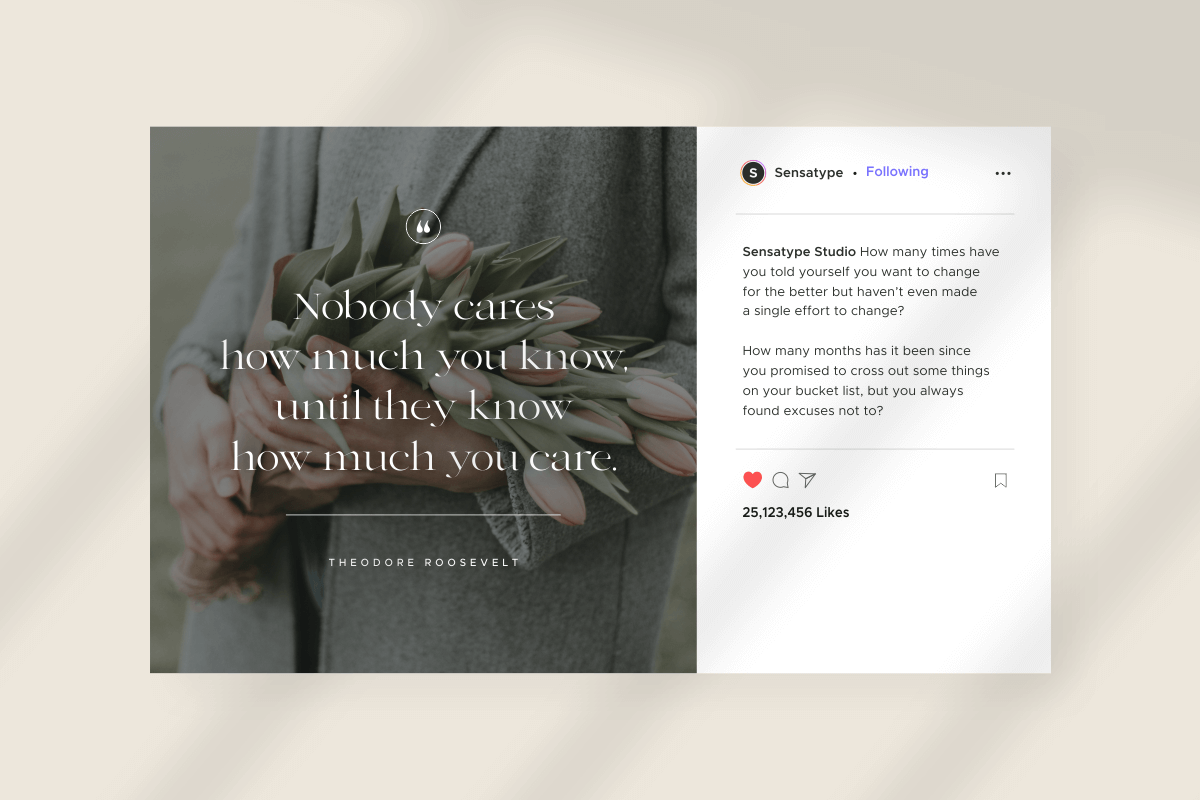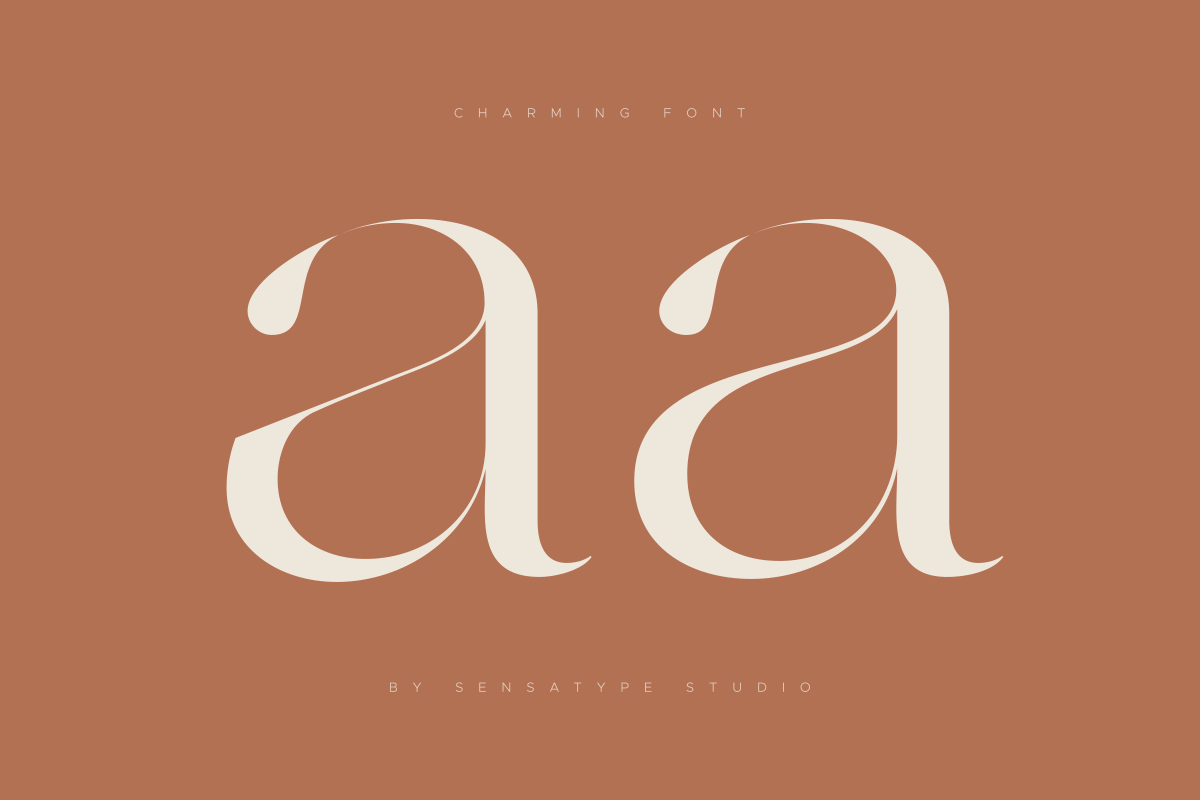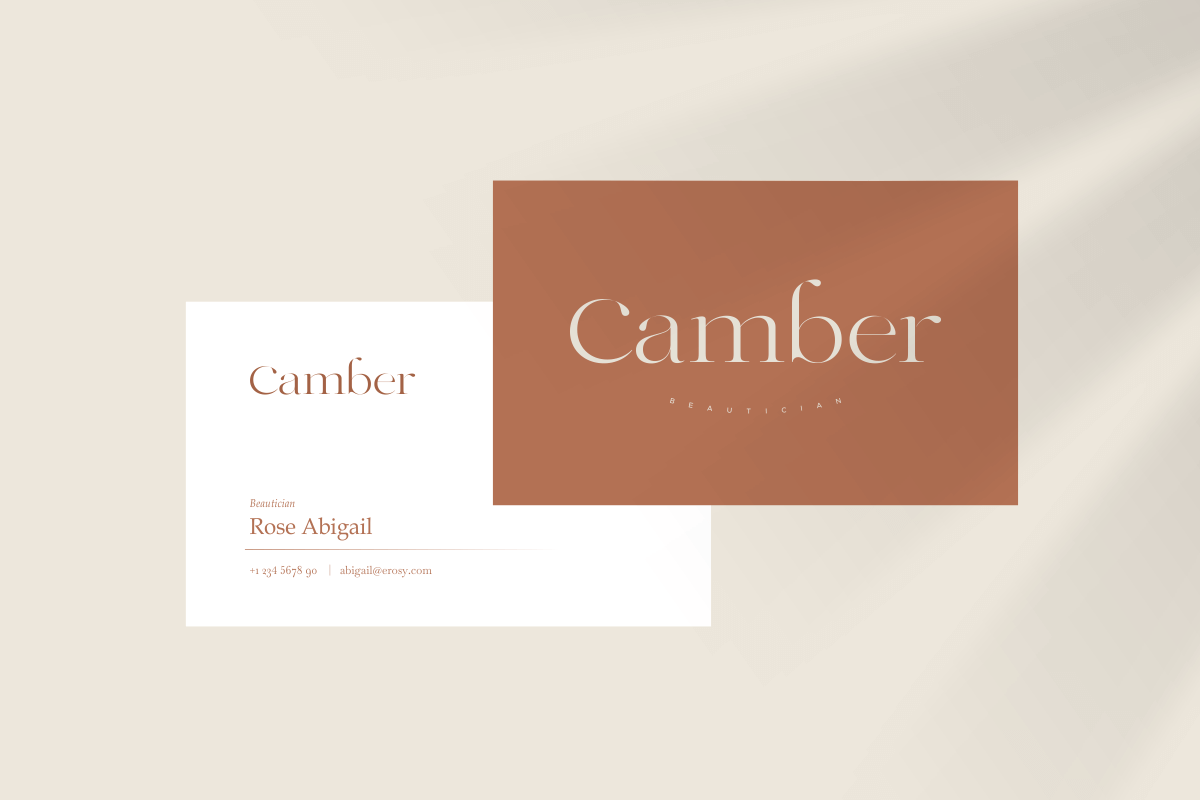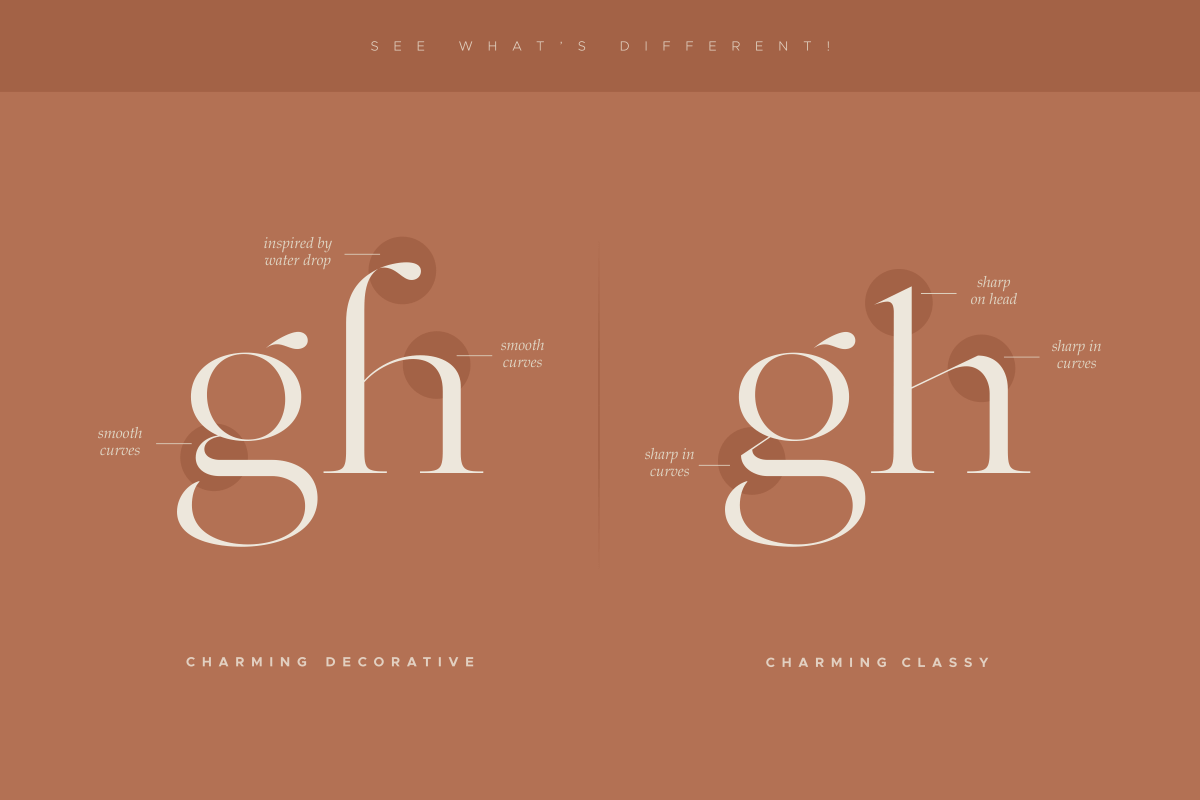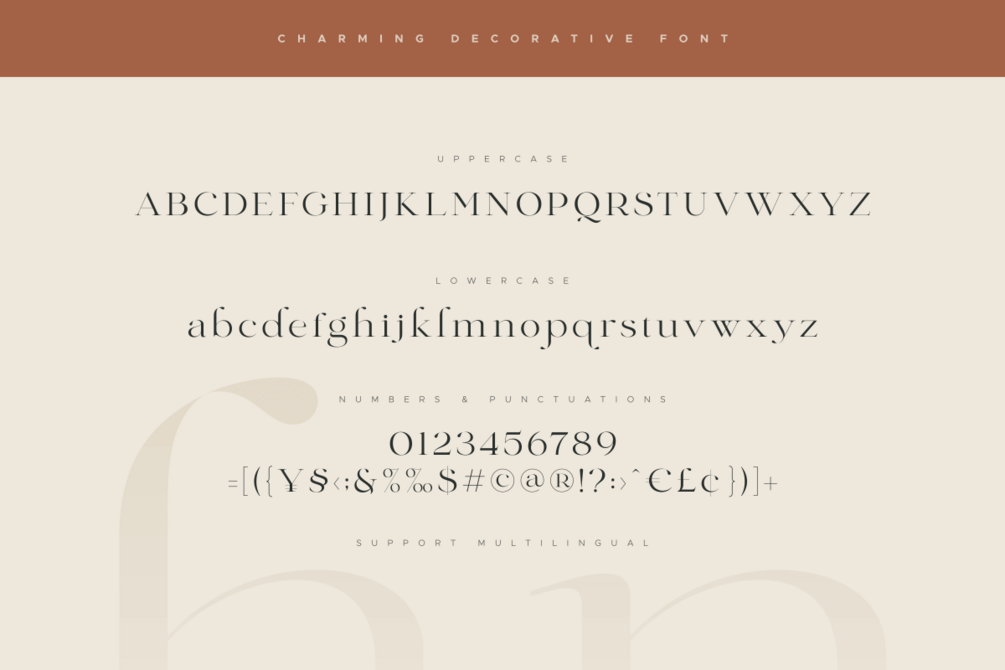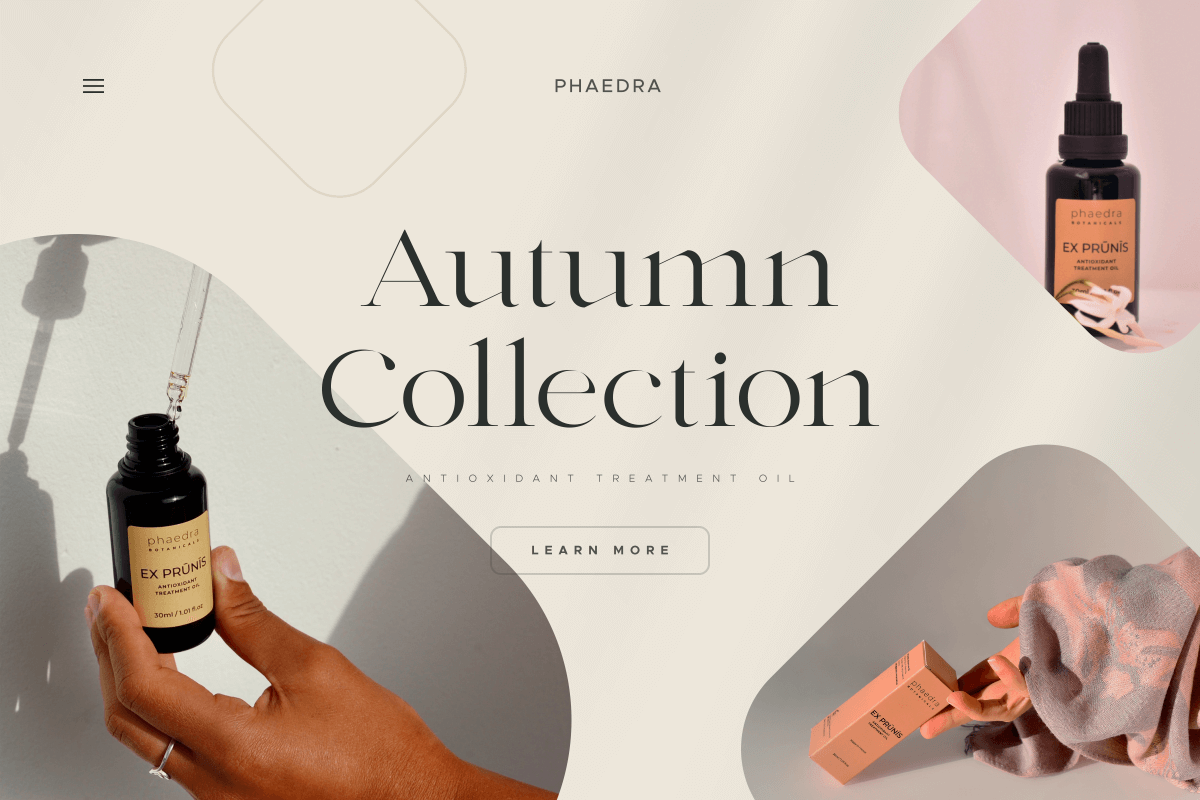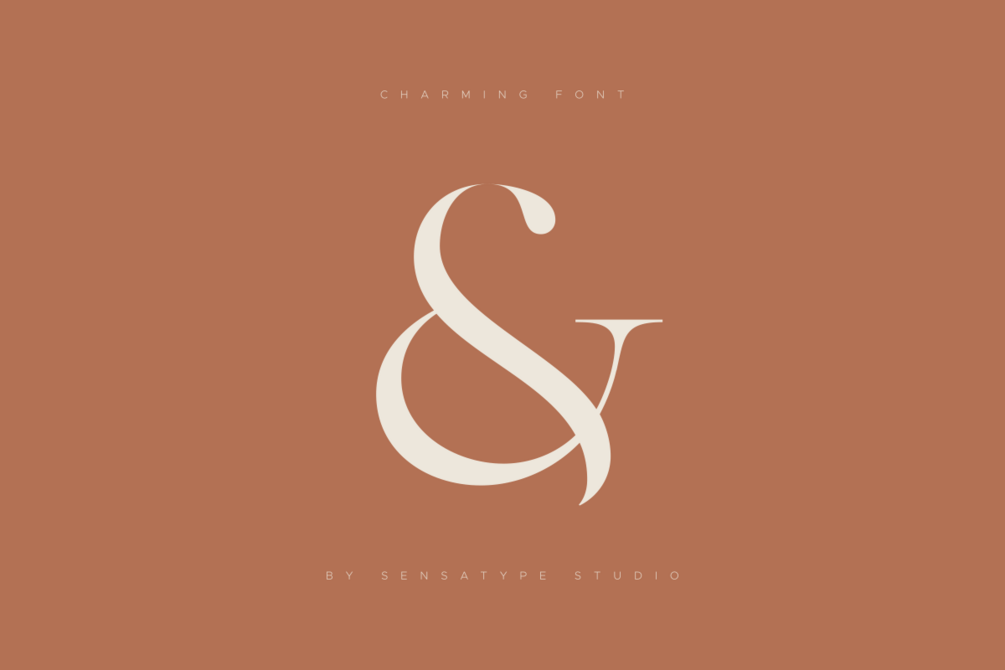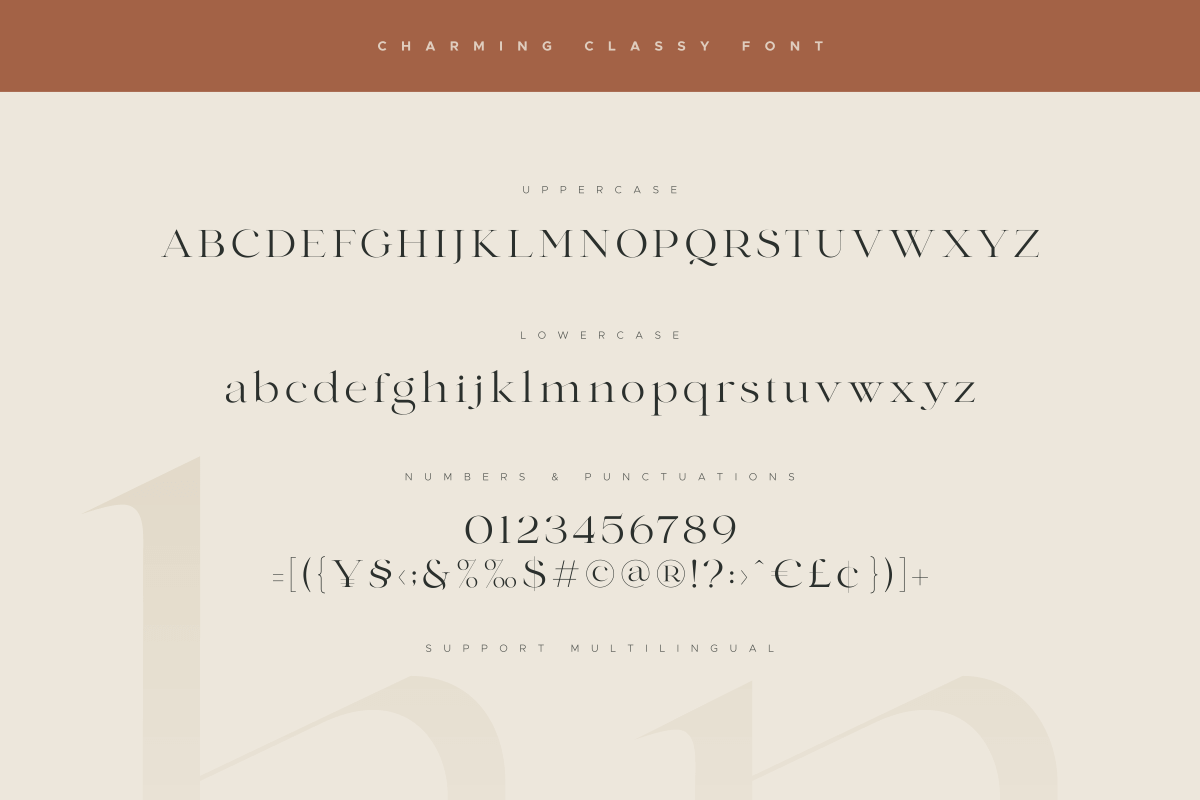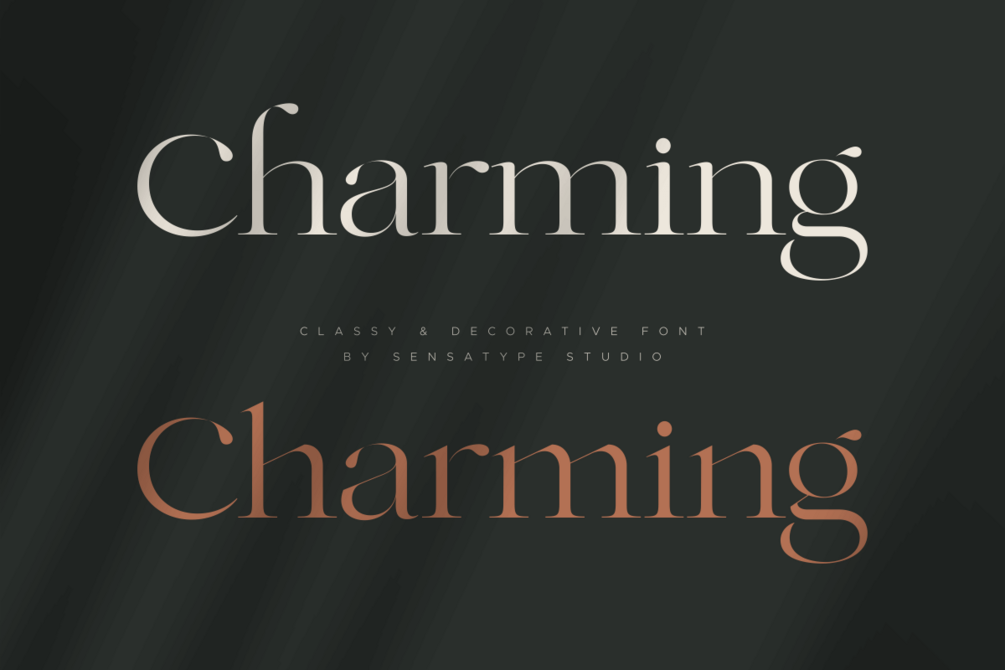
Charming - Classy & Decorative Font
Charming is a classy and decorative font crafted to bring elegance and uniqueness to your creative projects. Its refined and stylish letterforms make it perfect for branding, logos, invitations, packaging, and editorial designs.
Balancing decorative flair with readability, Charming adds a polished, professional, and visually captivating look to both digital and print projects. Ideal for designers seeking a touch of sophistication and charm.
Charming – Classy & Decorative Font Features
• Elegant and decorative character set
• Stylish, refined, and professional design
• Includes uppercase, lowercase, numerals, and punctuation
• Perfect for digital and print projects
• OpenType features for versatile typography
• Multilingual support